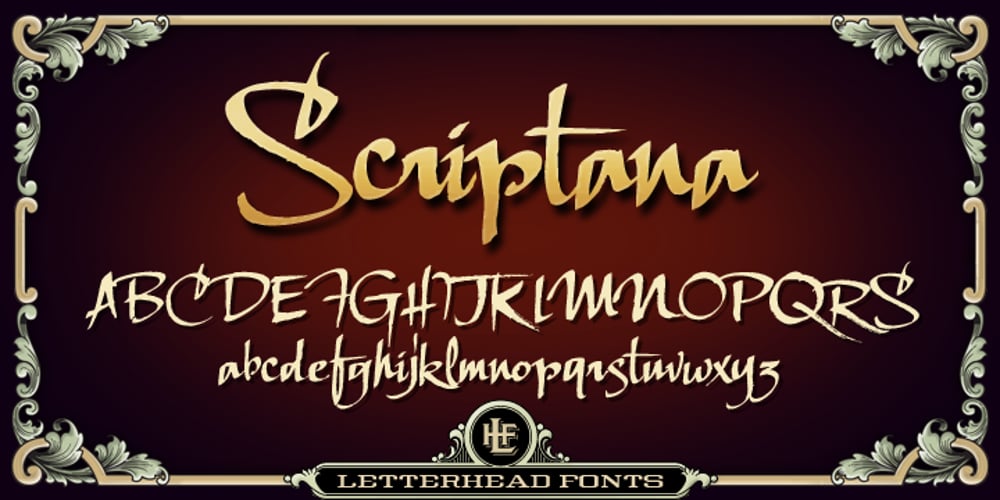
LHF Scriptana Font Family was designed by published by Letterhead Fonts. LHF Scriptana contains 3 styles and family package options. Hand-lettered script created with a calligraphic nib. Has a rough and loose appearance which helps retain its personal feel. Extends and condenses while retaining proportions well.